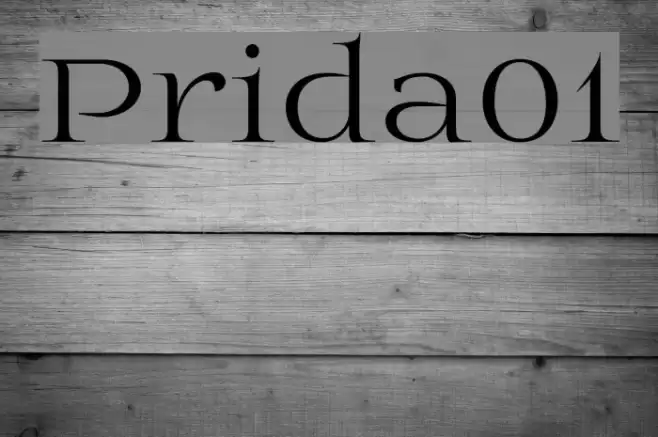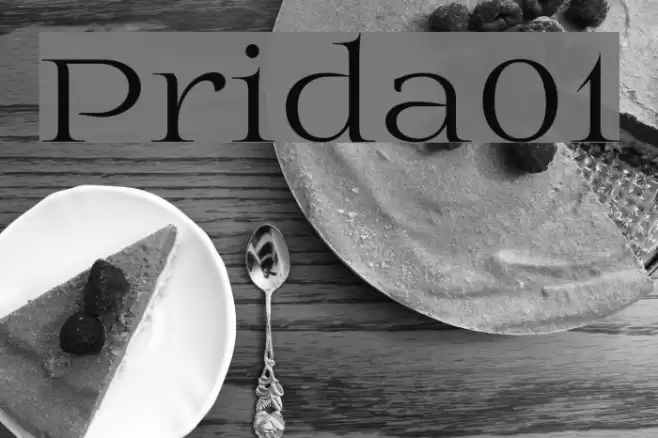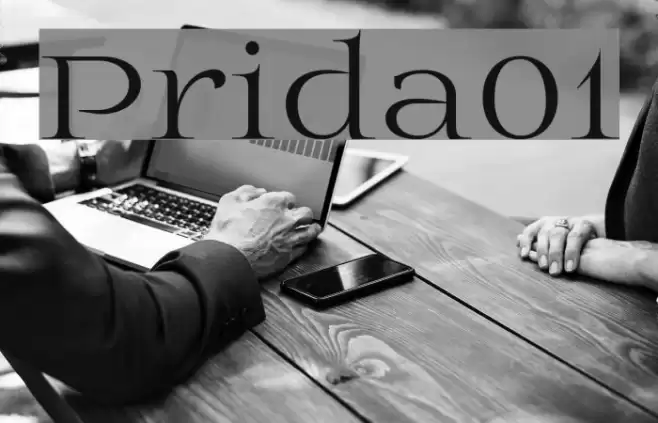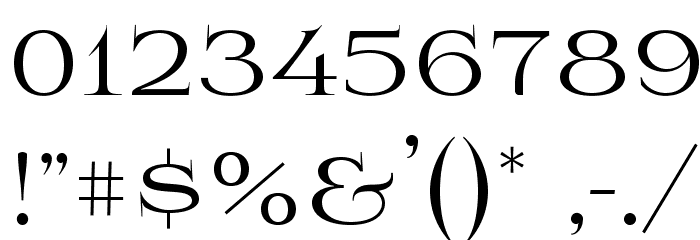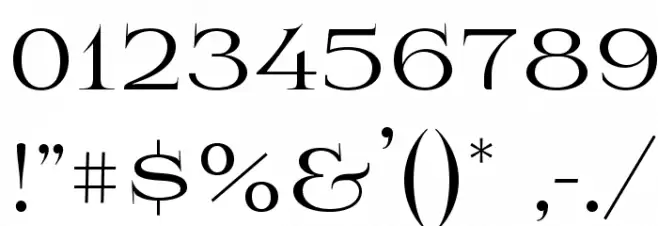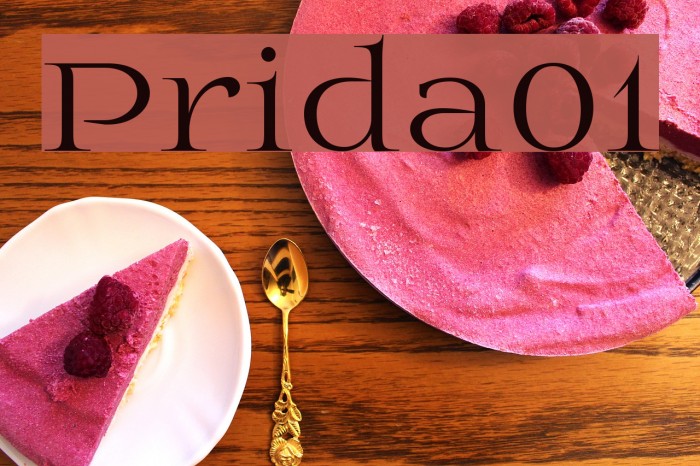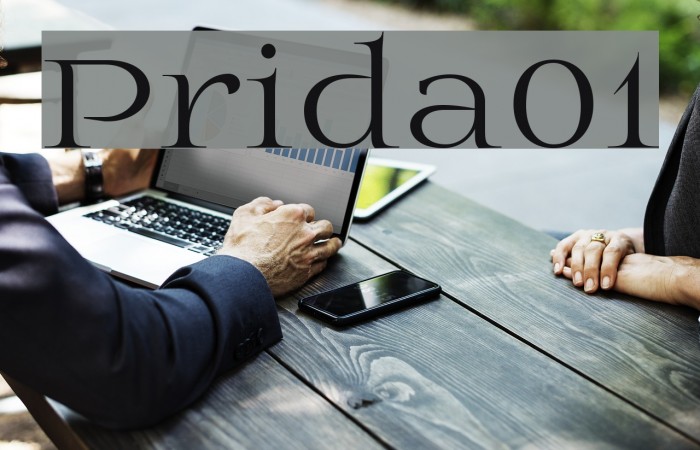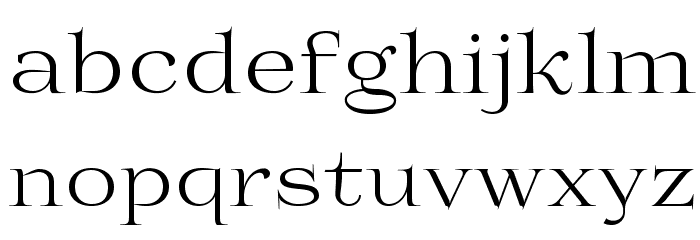
Prida01
This font features a classic serif style with elegant, sharp serifs and a sophisticated appearance. The uppercase letters are bold and commanding, while the lowercase letters maintain a refined and balanced look. The numerals are distinct and clear, with a traditional design that complements the overall aesthetic. Special characters are crafted with precision, adding to the font's versatility. The consistent stroke width and moderate contrast between thick and thin lines contribute to its readability and timeless appeal. This font is well-suited for projects that require a touch of elegance and formality.
A classic serif font with elegant, sharp serifs and a sophisticated appearance.
- Proposed Projects: Ideal for formal invitations, editorial design, branding, and luxury product packaging.
- Category: Serif
- Overall Style: Classic